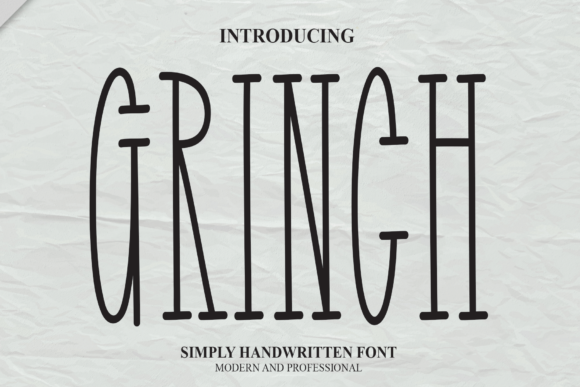
Have you ever stared at a blank page, feeling like your creative well has run dry? The blank space seems to mock you, daring you to come up with something amazing. And then, like a ray of sunshine, you stumble upon the perfect font – one that makes your words dance and your design come alive. For designers, finding that elusive perfect font can be a game-changer, elevating even the most mundane projects to new heights.
Enter the Grinch Font, a slender and elegant serif font that’s sure to be a valuable addition to your font library. With its tall and dainty letterforms, this font is perfect for adding a touch of sophistication and whimsy to your designs, whether you’re working on a blog post, a children’s book, or a wedding invitation.
Grinch Font Key Features
- Font Family: Grinch is a custom font designed specifically for the Dr. Seuss character, with a unique and recognizable style.
- Character Count: The font includes a wide range of characters, including uppercase and lowercase letters, numbers, and special characters, with over 250 glyphs.
- Unique Characteristics: The Grinch font features a distinctive, hand-drawn style with irregular shapes and rough edges, giving it a unique and whimsical feel.
Grinch Font Review
Overall, the Grinch Font is an interesting and unique font choice. ✨ The bold, playful strokes give it a fun and quirky feel that can add a lot of personality to your design projects. It’s perfect for creating eye-catching headings or titles that stand out from the rest.
One of the standout features of the Grinch Font is its versatility. ✨ It can be used in a variety of contexts, from children’s books to advertising campaigns, and still manage to hold its own. The font is also highly customizable, allowing you to adjust the size, color, and spacing to fit your specific needs.
However, there are a few limitations to consider: ⚠️ The font can be a bit difficult to read at smaller sizes, which may limit its use in body text or other situations where readability is a top priority. Additionally, the font’s playful nature may not be suitable for all projects or audiences.
- ✨ Unique and playful feel
- ✨ Highly customizable
- ✨ Versatile and suitable for a variety of contexts
- ⚠️ Difficult to read at smaller sizes
- ⚠️ May not be suitable for all projects or audiences
The Grinch Font is a great choice for designers who want to add a touch of personality and whimsy to their projects. While it may have some limitations, its unique feel and versatility make it a valuable addition to any design toolkit.
Tips for Getting the Most Out of Grinch Font
Here are some tips to help you get the most out of Grinch Font:
- Use Grinch Font for titles and headings to create a bold and eye-catching effect.
- Combine Grinch Font with other fonts to create a unique and playful look.
- Experiment with different font sizes and colors to create a visually appealing design.
Here are some common use cases for Grinch Font:
- Designing children’s books and educational materials.
The Grinch Font is a popular font known for its bold, distressed, and playful style. However, it may not be suitable for every design project. Here are some alternatives to consider: